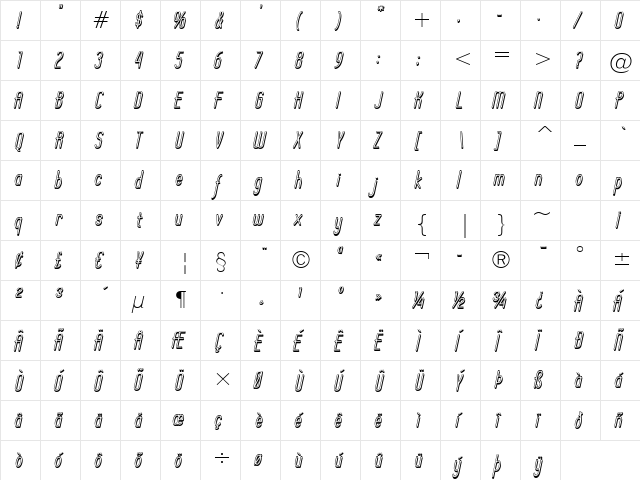
Operator Nine BTN Shadow Oblique
Design Context for Operator Nine BTN Shadow Typeface
Operator Nine BTN Shadow is built around its visual character rather than neutral utility — its distinctive forms are designed to make an impression at display sizes. Its italic angle brings a sense of urgency and motion to the letterforms.
Font Pairing: Pair with a clean neutral sans-serif for body copy to let Operator Nine BTN Shadow's character lead without overwhelming the composition.
Pro Tip: Use Operator Nine BTN Shadow exclusively at display sizes — it was designed to be seen, not read at length. Let a neutral companion handle body copy.